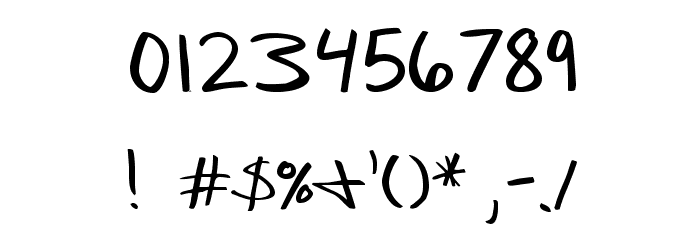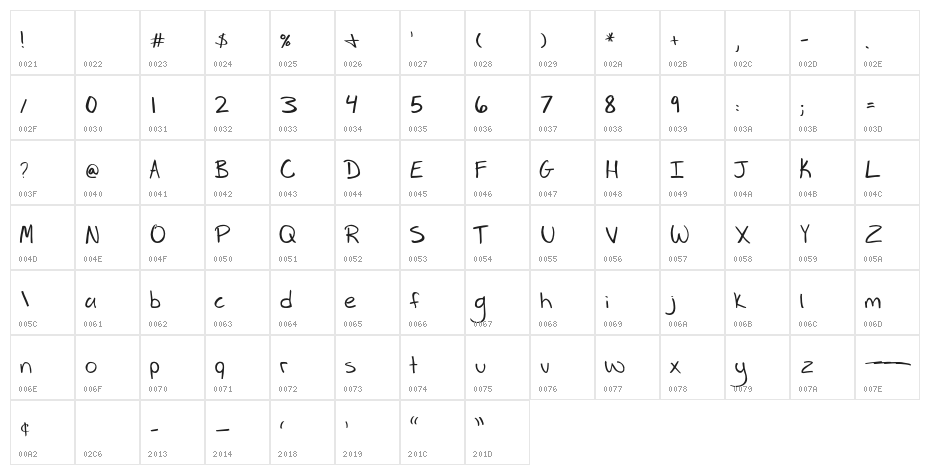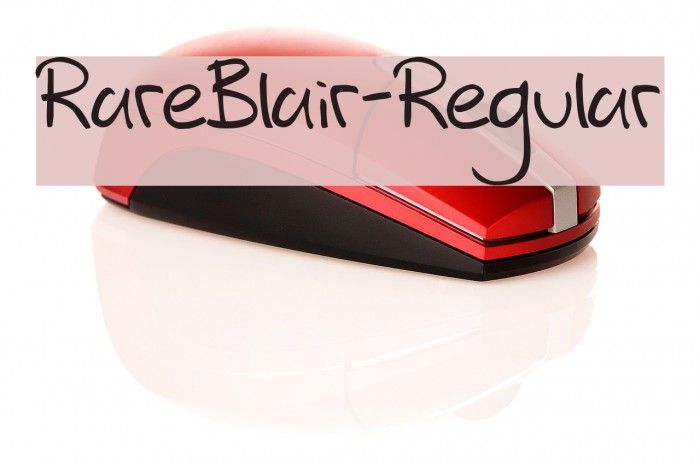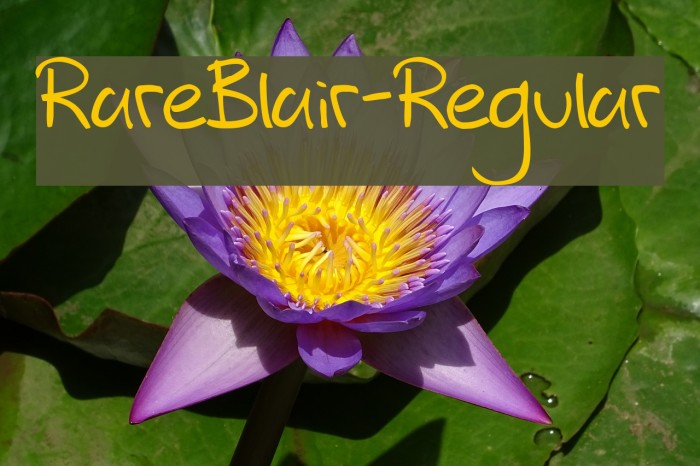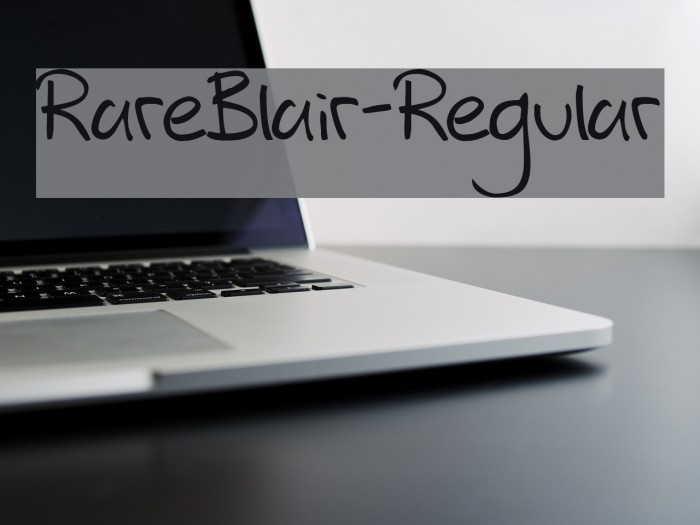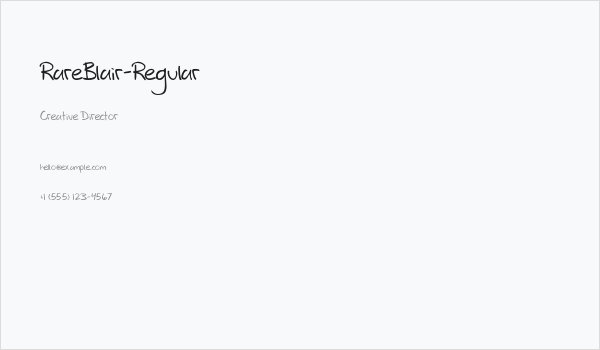
RareBlair-Regular Font
RareBlair-Regular Description
This font features a playful and casual handwritten style, characterized by its irregular strokes and slightly uneven baseline. The letters have a natural flow, giving it an informal and friendly appearance. The uppercase letters are bold and prominent, while the lowercase letters maintain a consistent style with a slightly smaller size. The numbers are clear and legible, matching the overall aesthetic. Special characters are included, maintaining the same playful and approachable style. This font is versatile, suitable for projects that require a personal touch or a relaxed vibe.